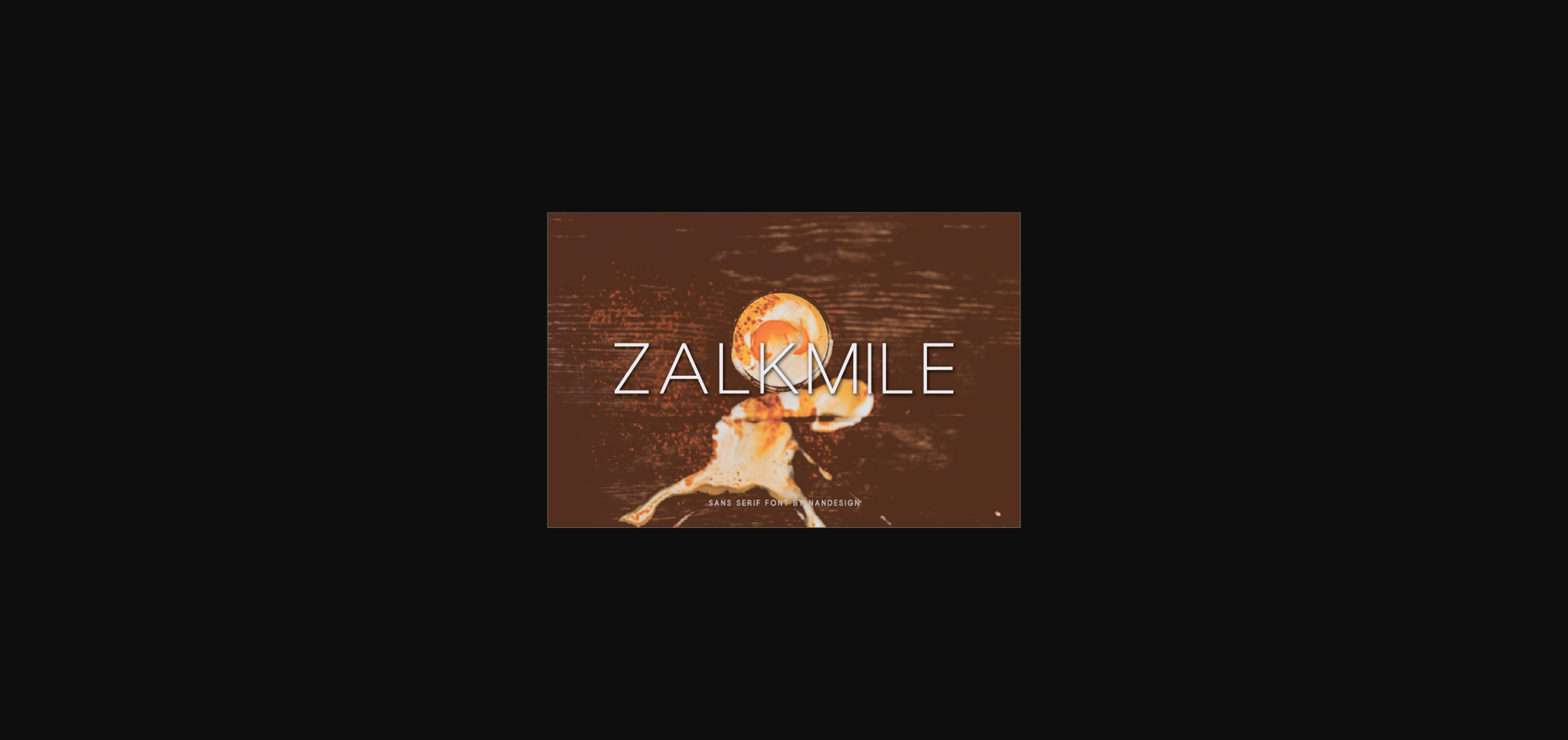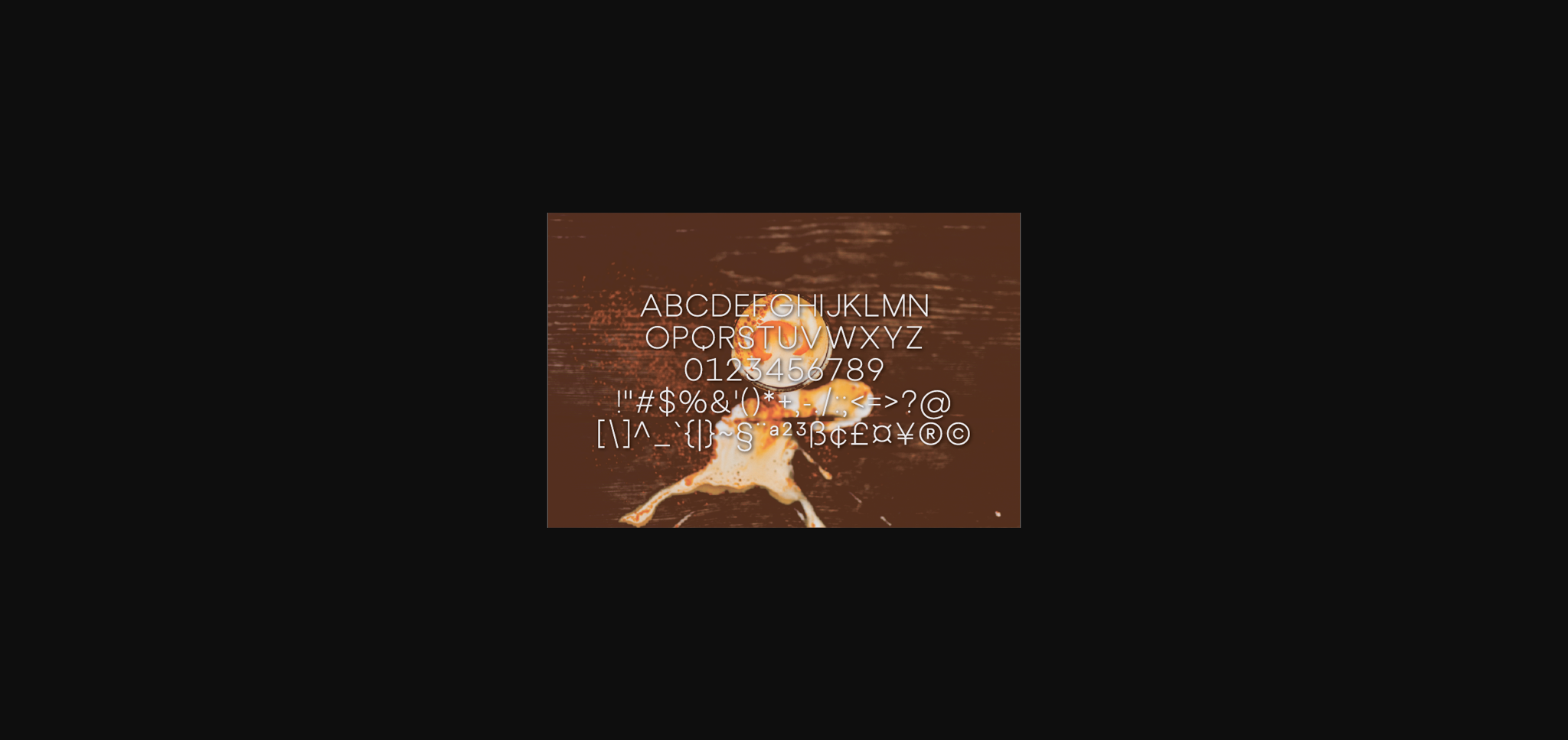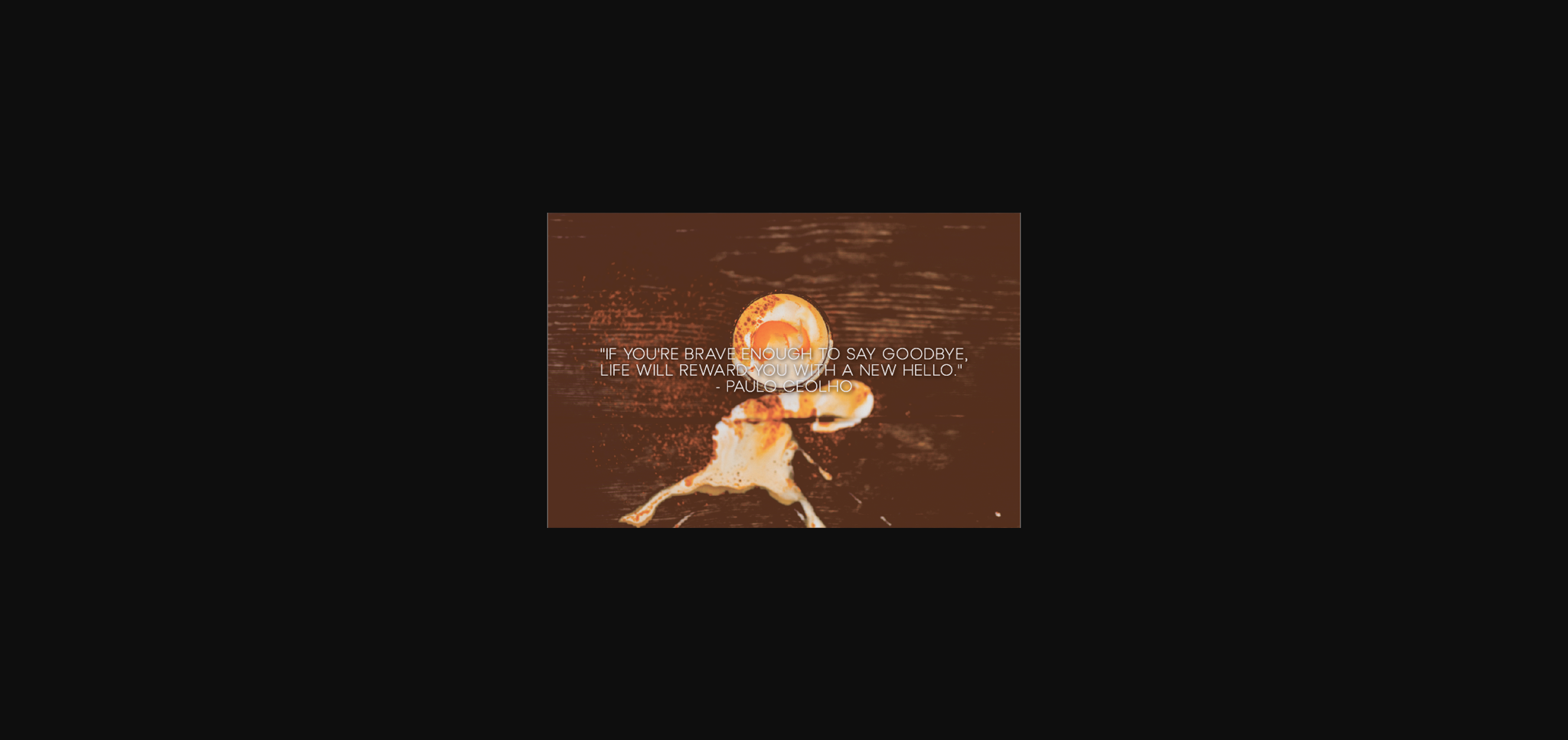
About Zalkmile Font
Zalkmile is a trendy sans serif font created to complement every project you’re working on.
It is perfect for displays, headers, invitations, save the dates, weddings, and so much more!